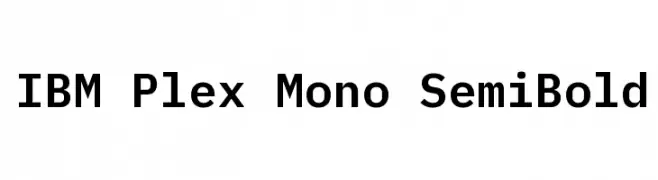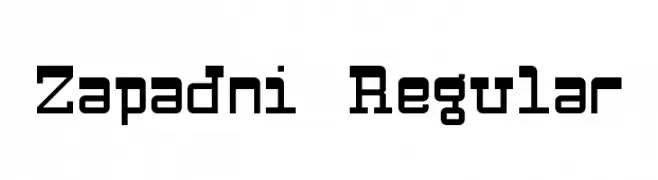
A clean, modern monospaced font with semi-bold weight, ideal for coding.
A thin, monospaced font with a modern, geometric design.
A modern, monospaced italic font with medium weight and balanced proportions.
A modern, monospaced typeface with semi-bold weight and italic style.
A modern, thin, monospaced italic font with clean lines and high legibility.
A monospaced, pixelated font ideal for coding and technical documentation.
A bold, geometric font with an industrial, monospaced design.
A clean, modern monospaced font with uniform character widths and geometric structure.
A monospaced font designed for readability, featuring distinct, weighted letterforms.